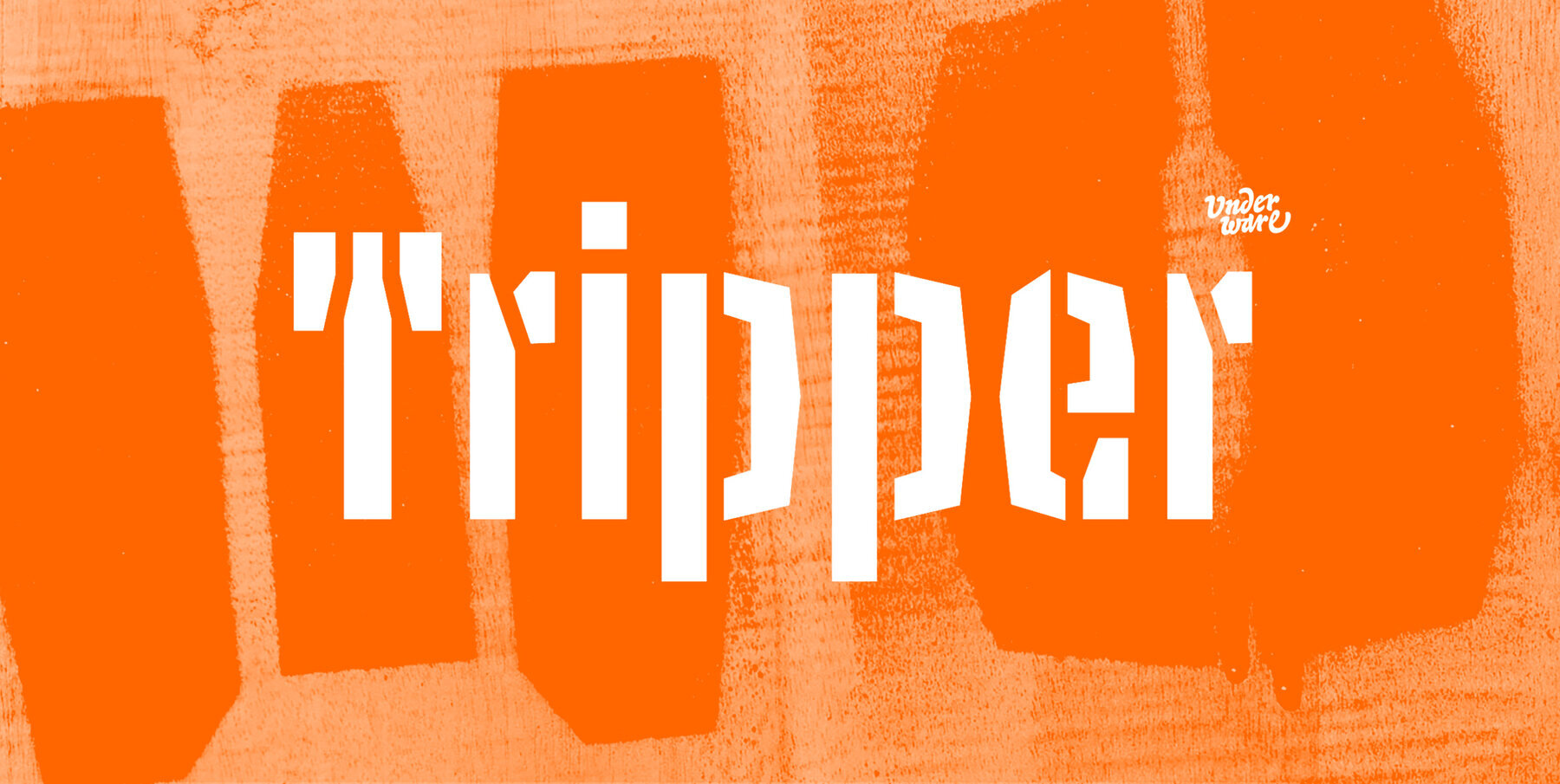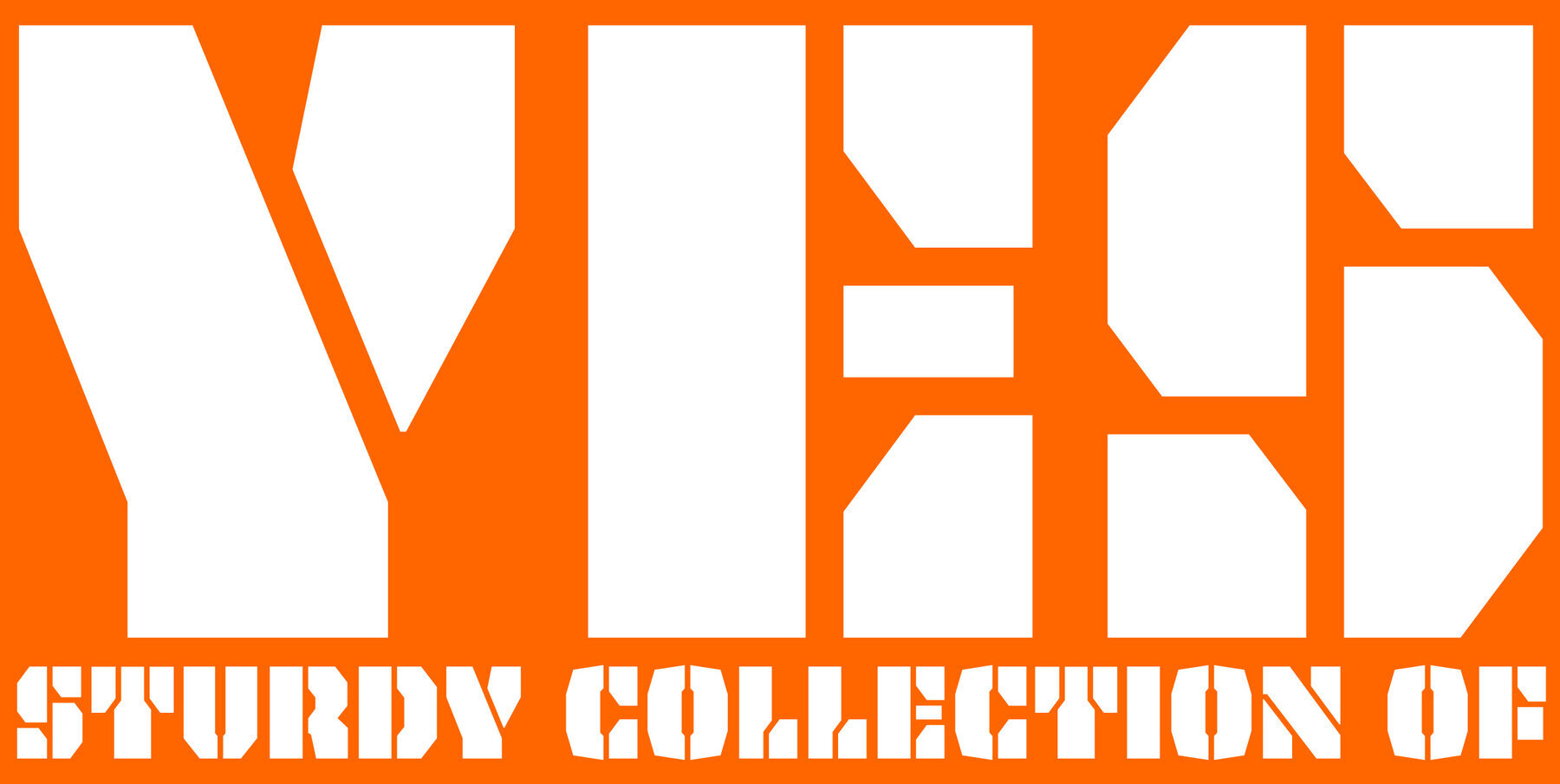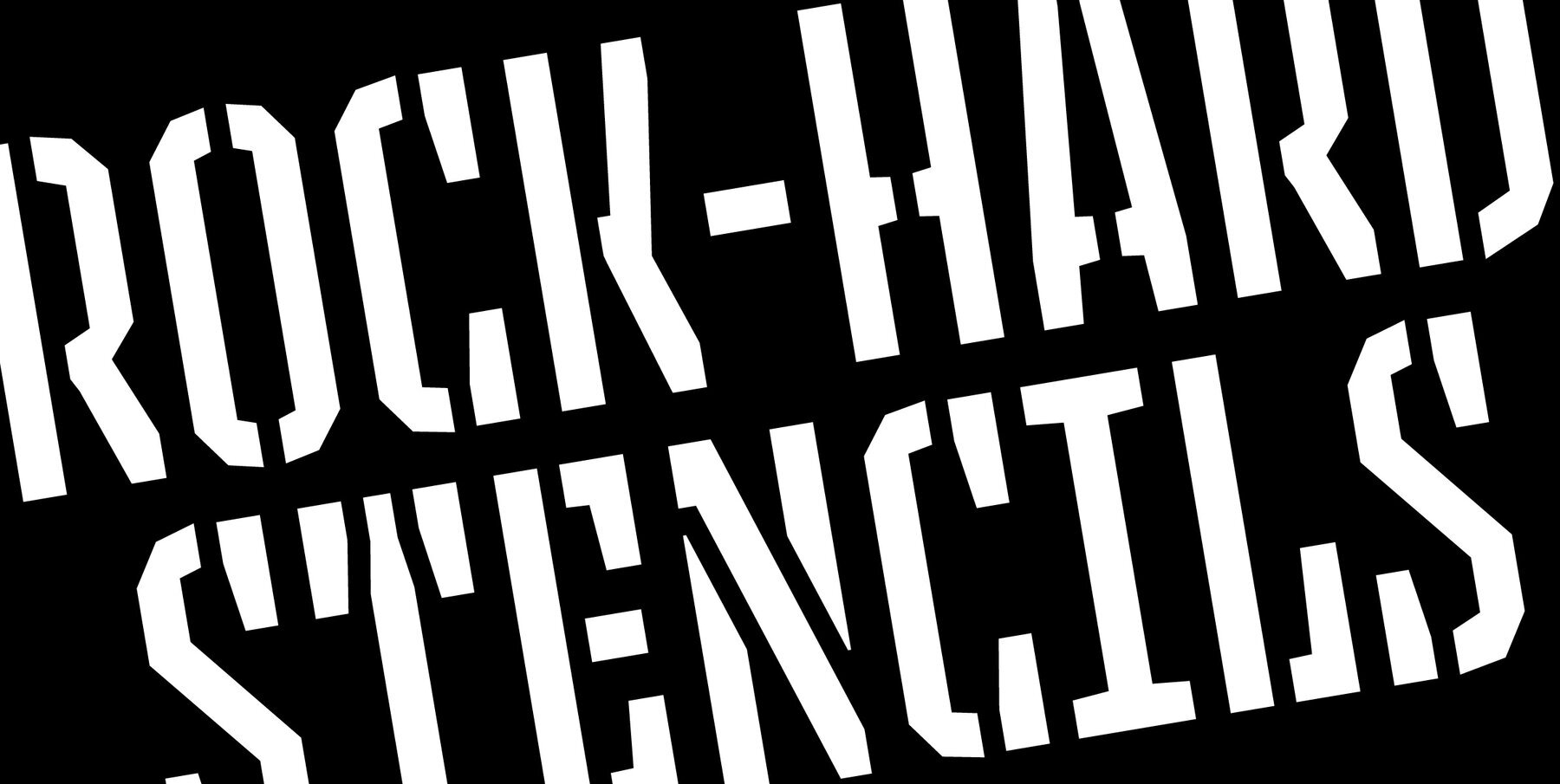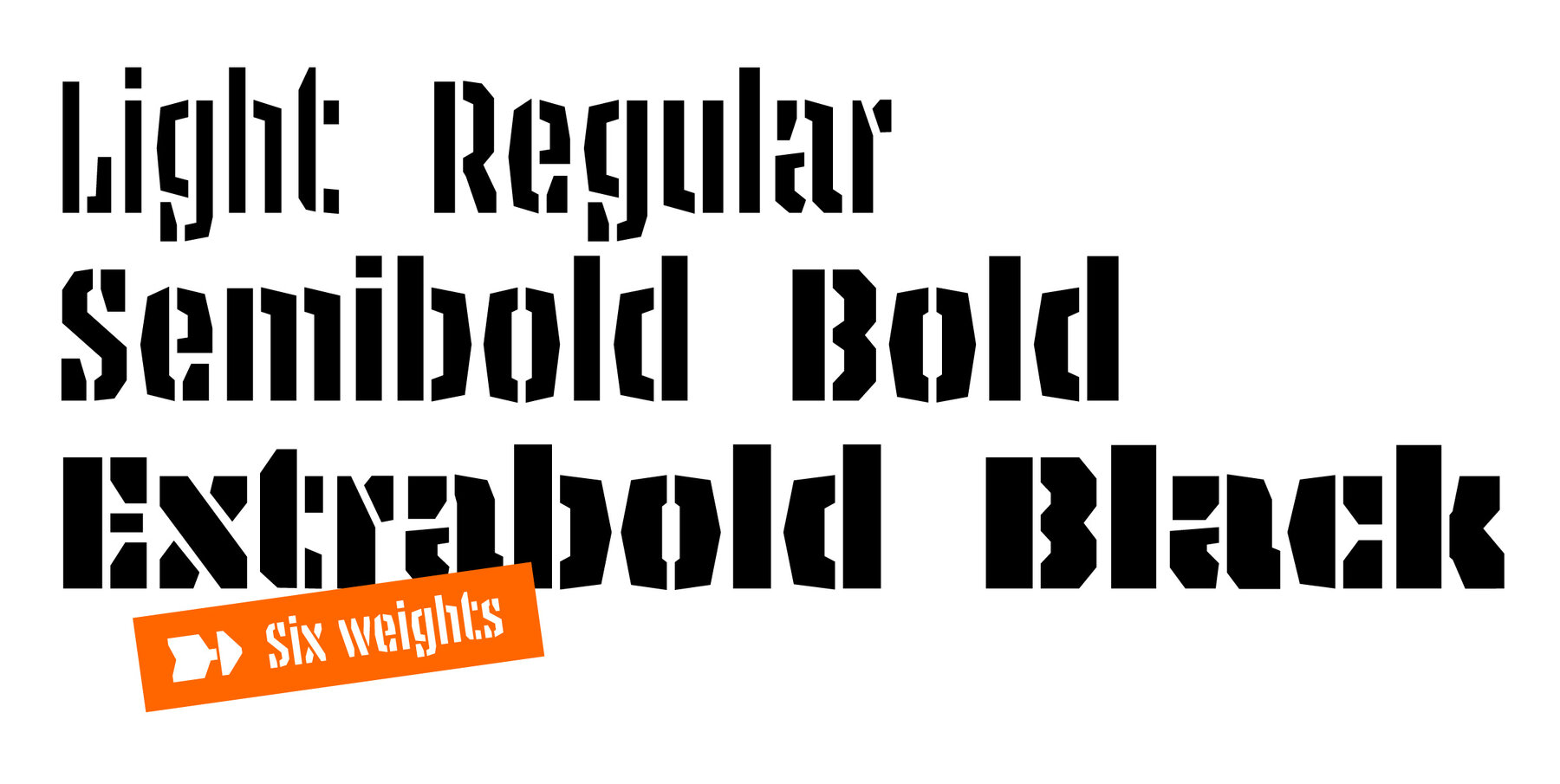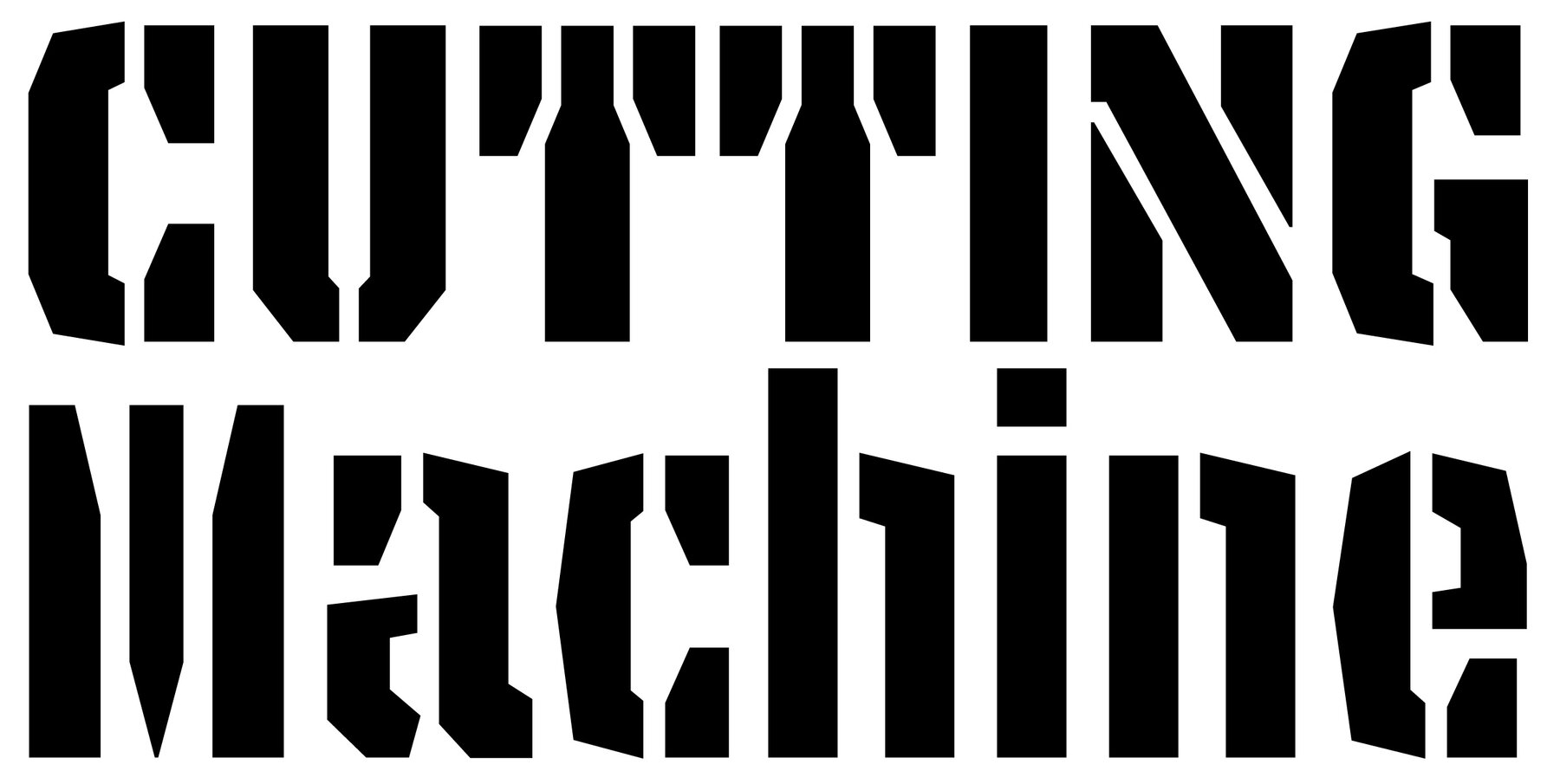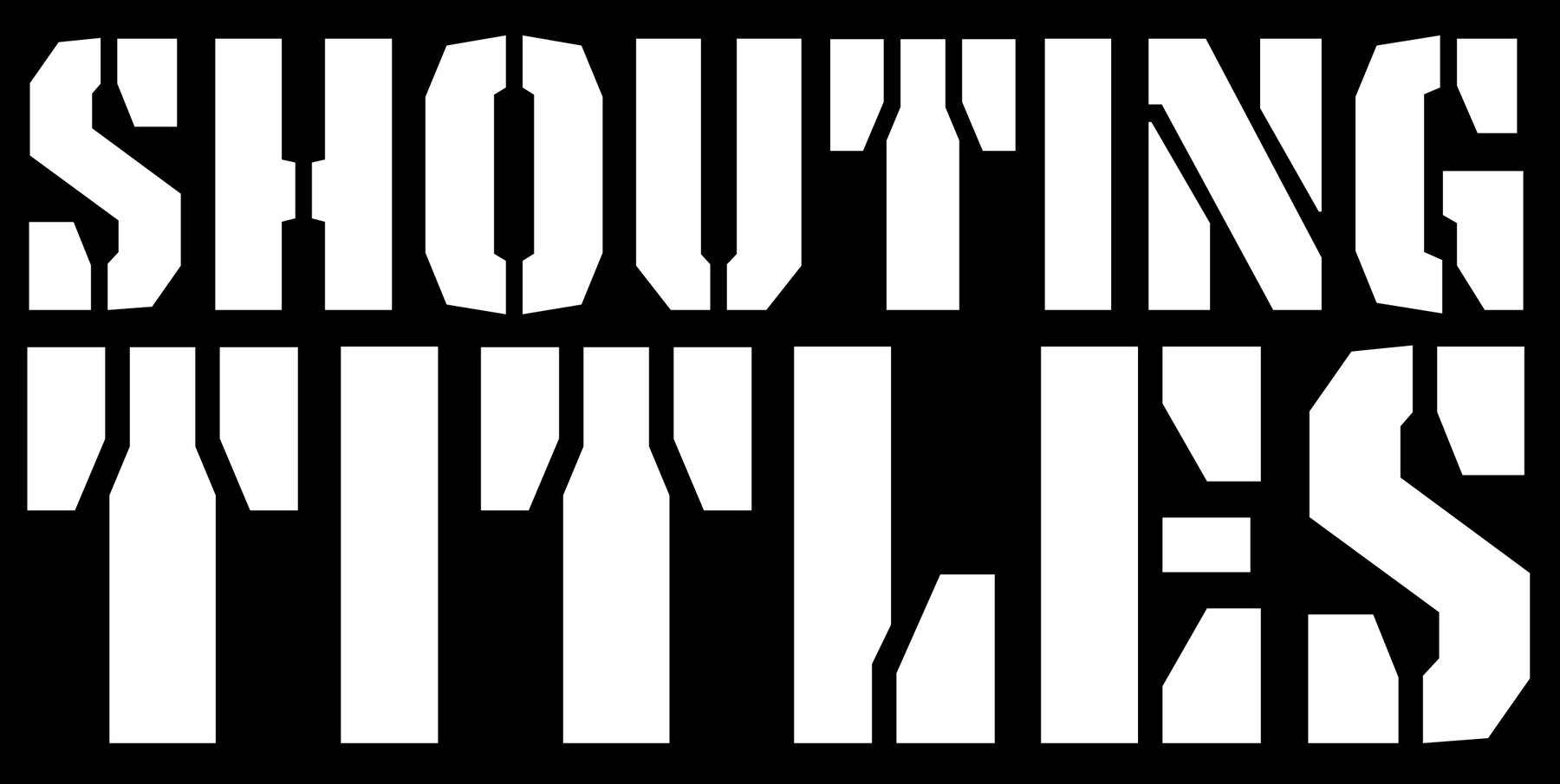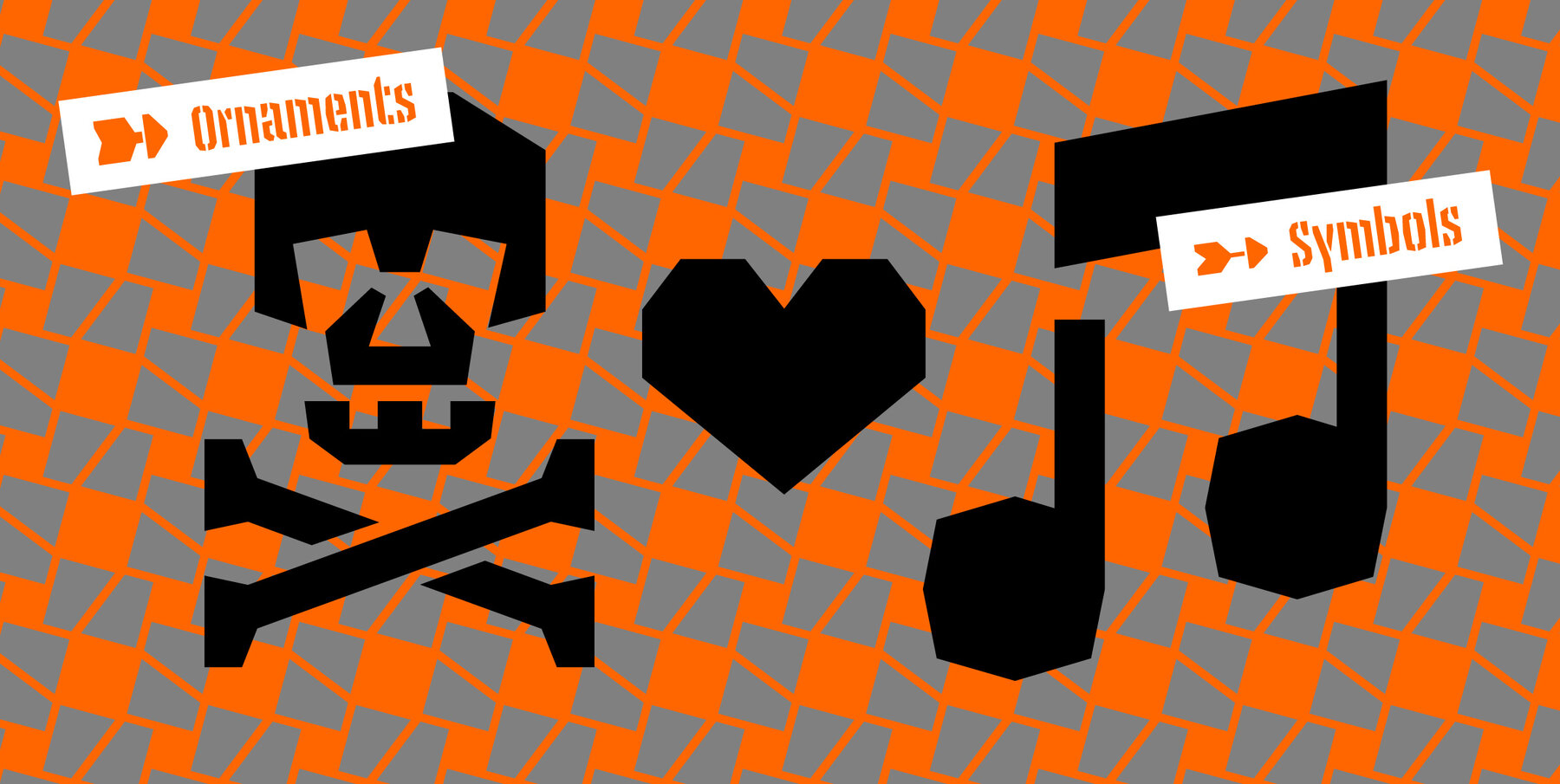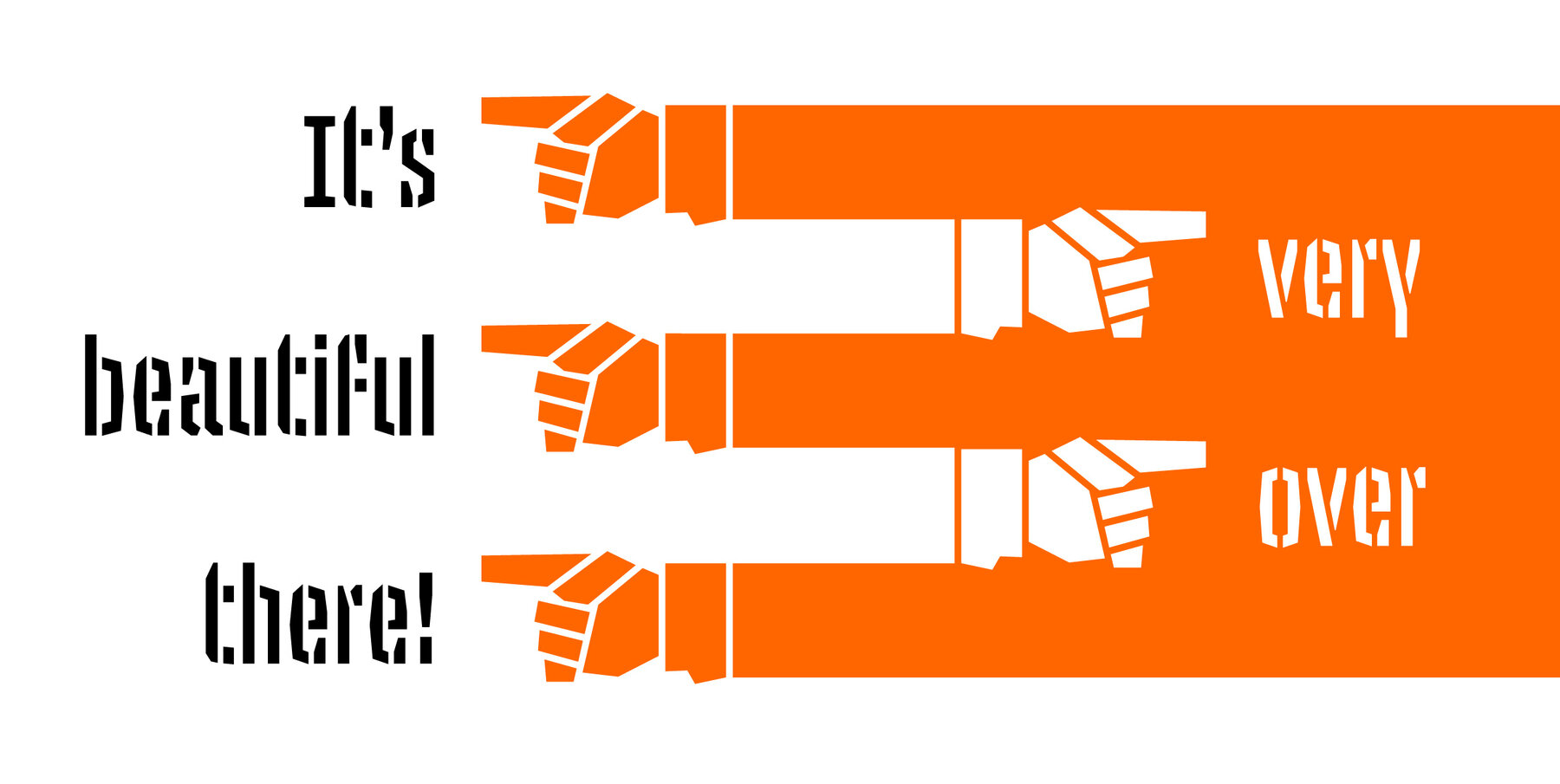
Tripper Pro Font
Tripper is a rock-hard display font family. The six styles – from Light to Black – of this robust stencil typeface will assure your text grabs all the attention it can get. Instead of settings large amount of texts, just use this font for a small amount of words. Or even better: just one word. But most importantly: make it really, really big. The lightest weight is pretty condensed, and slowly expands when the weight increases. The bridges – essential to a stencil font – have the same width across all styles, so you can safely apply all styles in the same size without the risk of stencils falling apart. Due to the absence of curves throughout the whole family, Tripper is suitable for more limited, industrial applications too. Tripper comes in several flavours. Next to the basic flavour, there is a stencil family which automatically creates borders around every letter, word or line. Then there is Tripper Rough, a textured version with that intelligent random, grungy look. Together with the previously released multi-colour font Tripper Tricolor, the complete family consists of 24 styles. Tripper is equipped with a bunch of OpenType features, like different figure styles, fractions, superiors, etc. But if all the OpenType ding-dong is not enough for you, just try the ornaments. The separate ornament font comes with icons, indicators, manicules, banderoles and patterns. Tripper comes with Underware’s Latin Plus character set with a support for 219 languages.